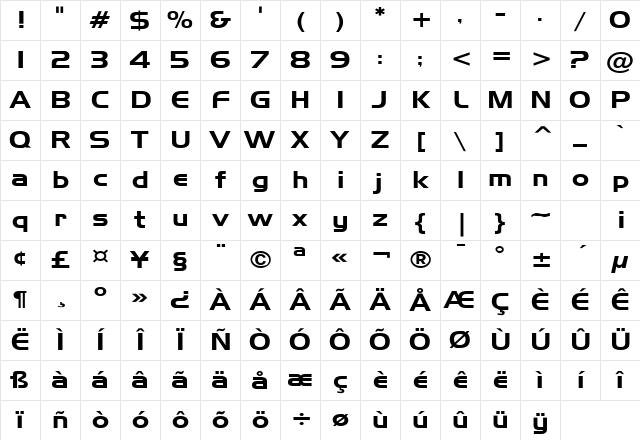
Hanzel Wide Normal
Design Context for Hanzel Wide
Hanzel Wide is a composed and adaptable typeface that performs quietly and consistently across a wide range of design contexts.